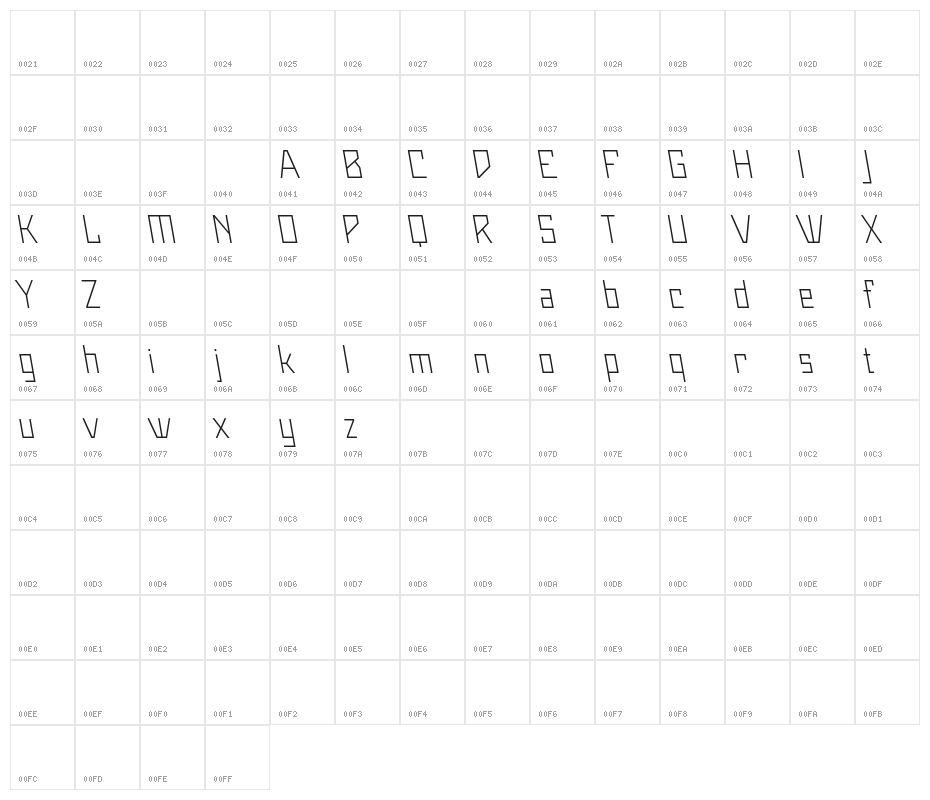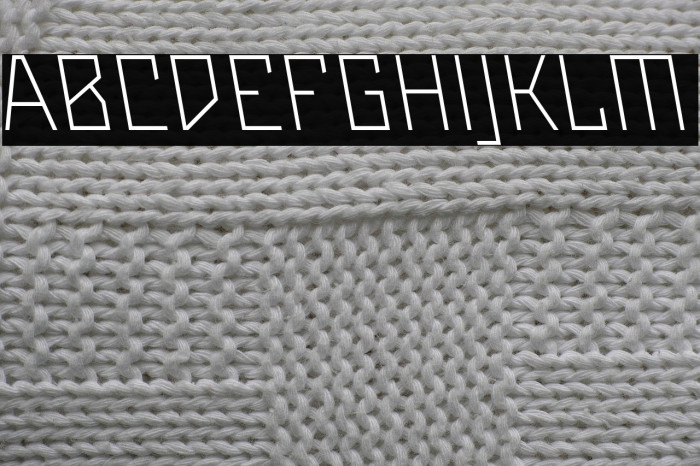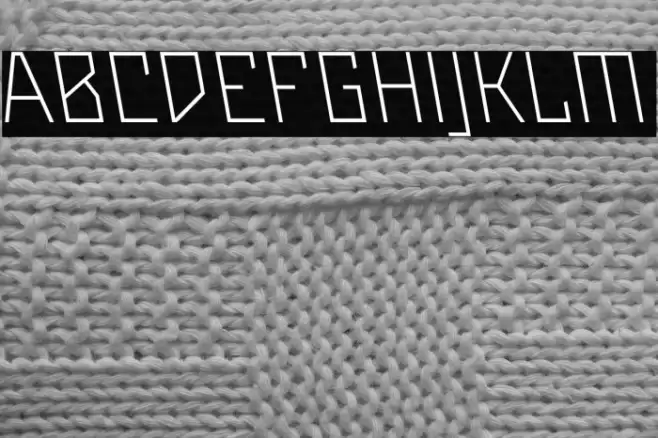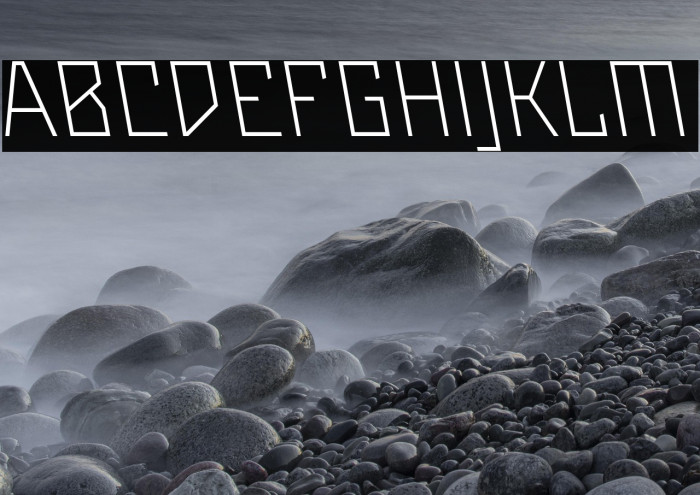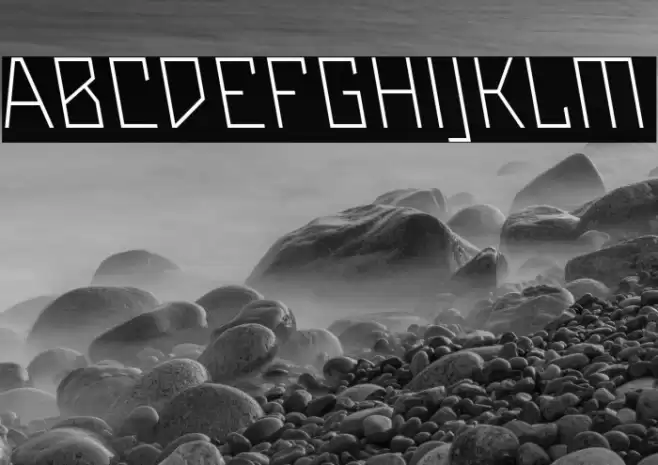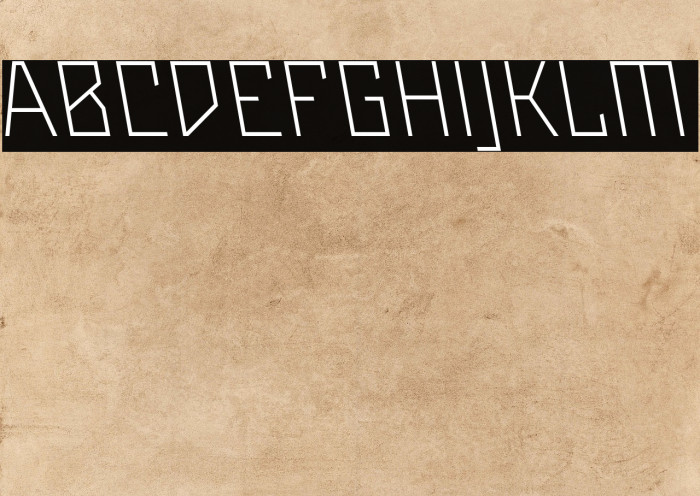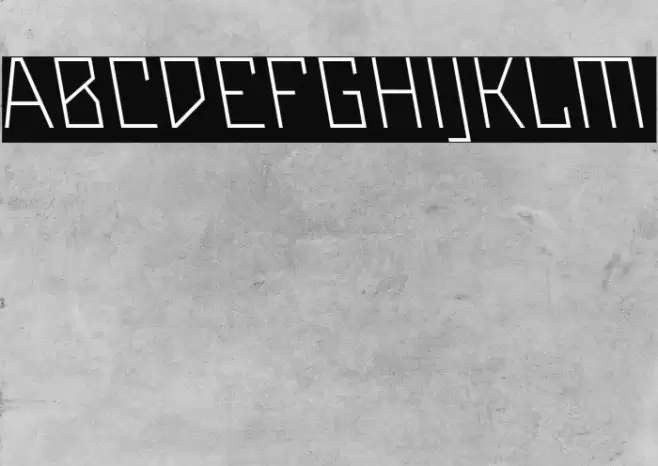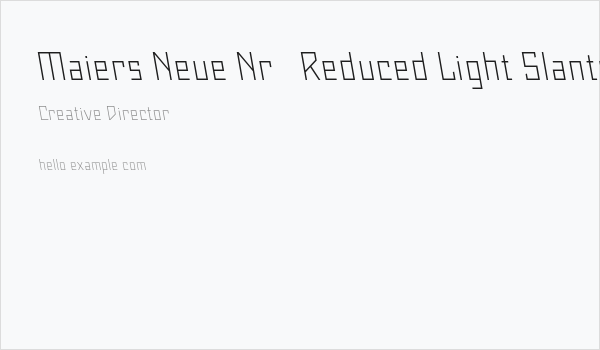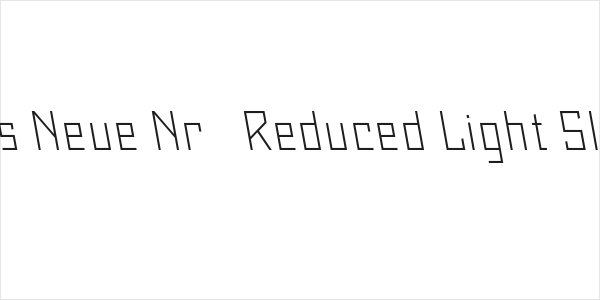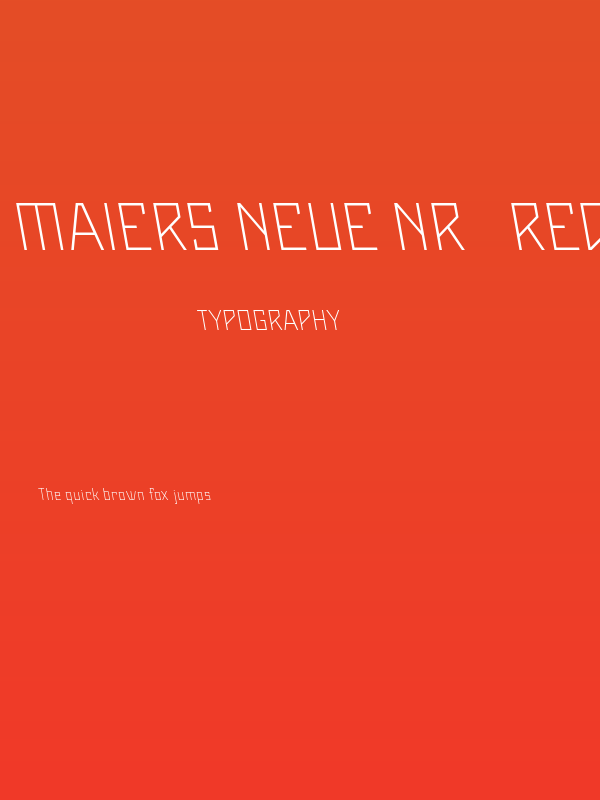
Maiers Neue Nr.8 Reduced Light Slanted Font
Maiers Neue Nr.8 Reduced Light Slanted Description
This font features a geometric and angular design, characterized by its sharp edges and clean lines. The uppercase and lowercase letters maintain a consistent structure, with a slight slant that adds a dynamic feel. The strokes are uniform in weight, contributing to a modern and minimalist aesthetic. The font's unique style is evident in its distinct letterforms, which are both legible and visually striking. The spacing between characters is balanced, ensuring readability while maintaining the font's sleek appearance. This typeface is ideal for projects that require a contemporary and edgy look.
| Proposed Projects | Ideal for branding, posters, and digital media that require a modern and edgy aesthetic. |